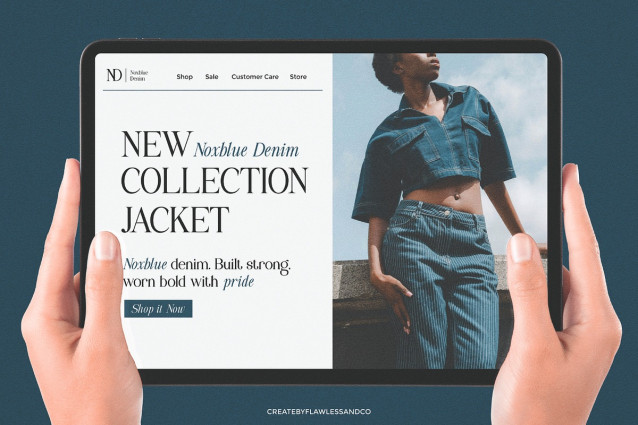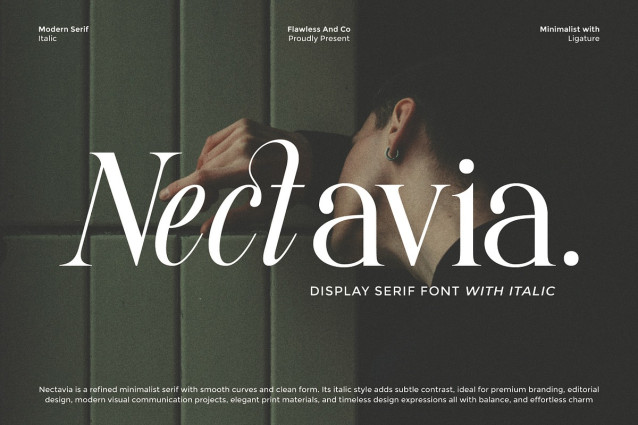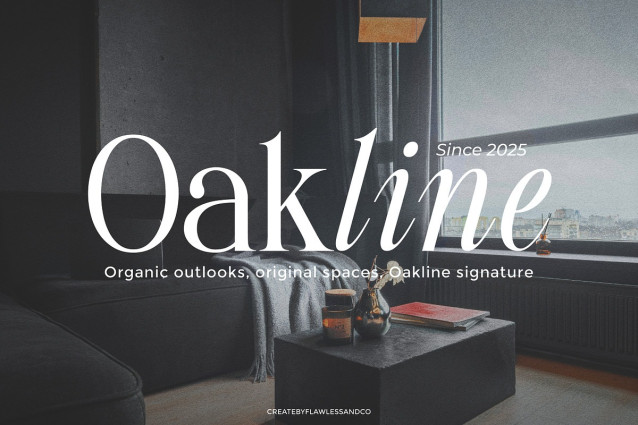
Nectavia Font
Nectavia Font is a refined display serif with smooth curves, elegant proportions, and a modern minimalist aesthetic. Designed with a balance of sophistication and versatility, this font blends timeless serif tradition with contemporary flair. Its italic variation introduces subtle contrast, making it perfect for premium branding, editorial layouts, packaging design, wedding concepts, and luxury visual projects. Whether used for bold headlines, stylish logos, or elegant print applications, Nectavia delivers a sense of class, harmony, and effortless charm. With its clean form and graceful details, this font is crafted to elevate design expressions into something truly iconic.